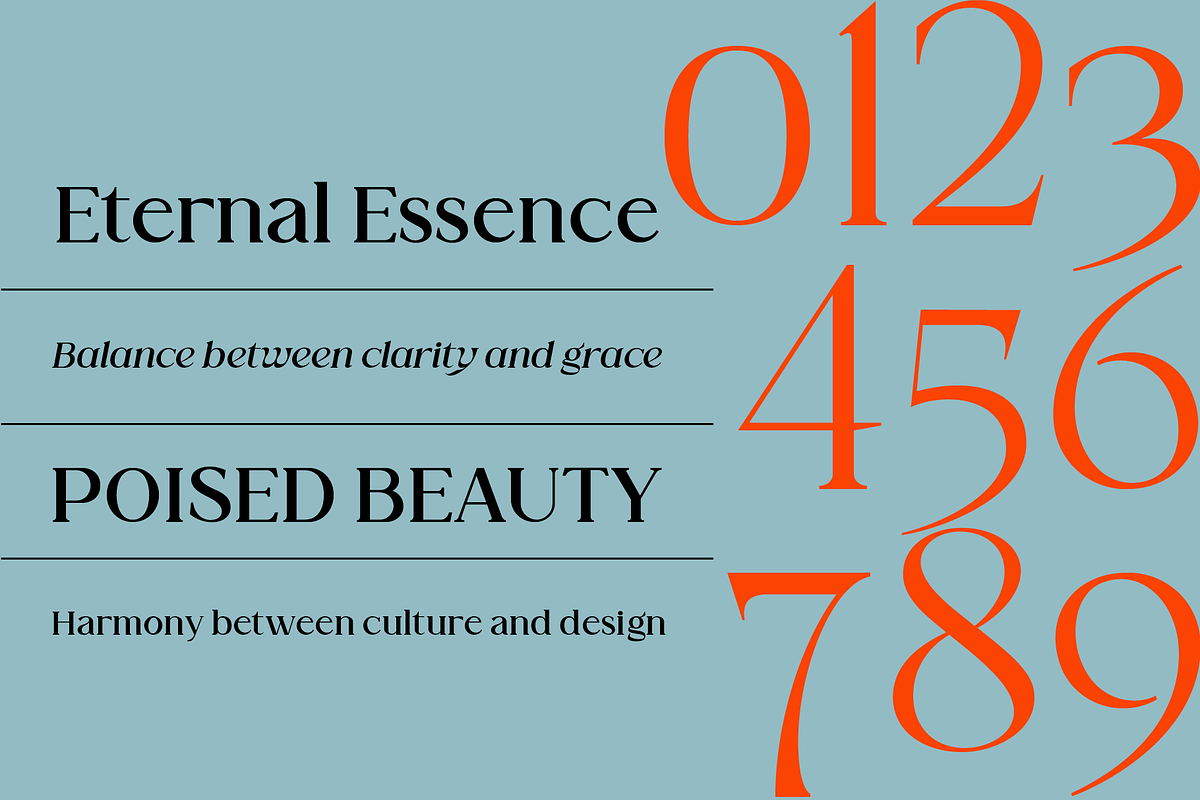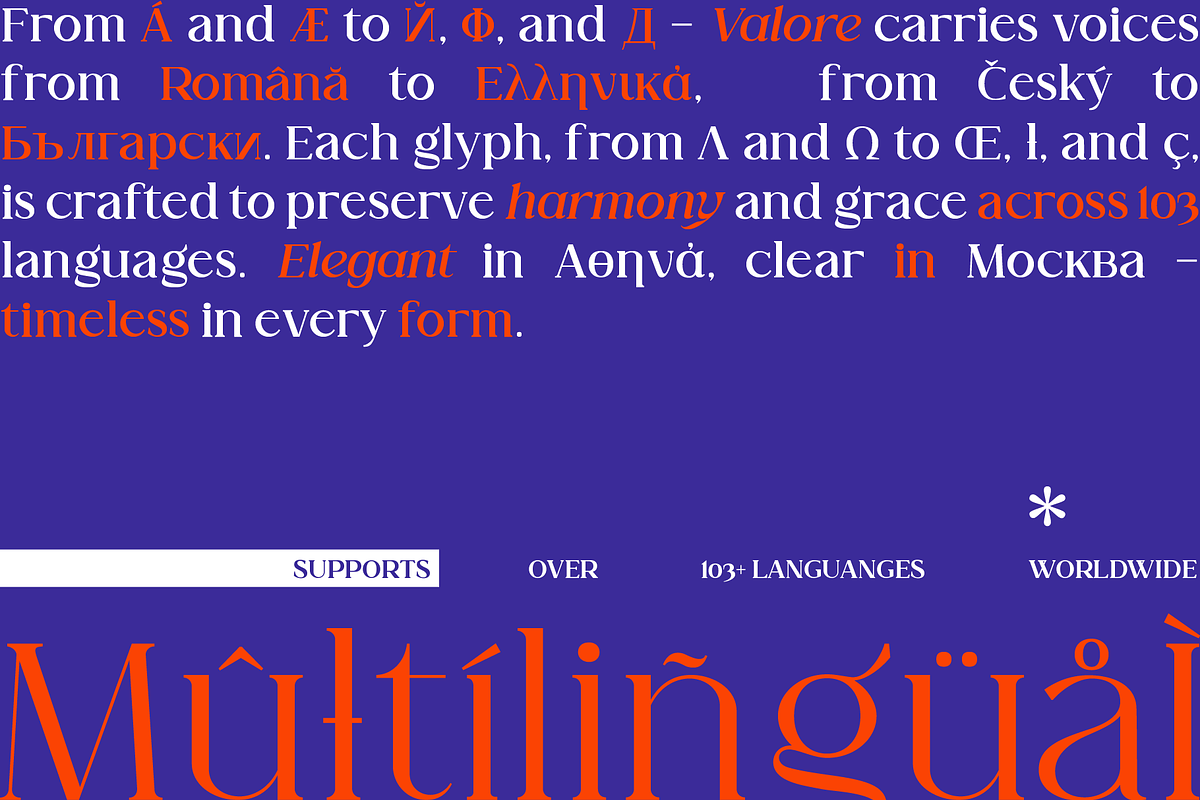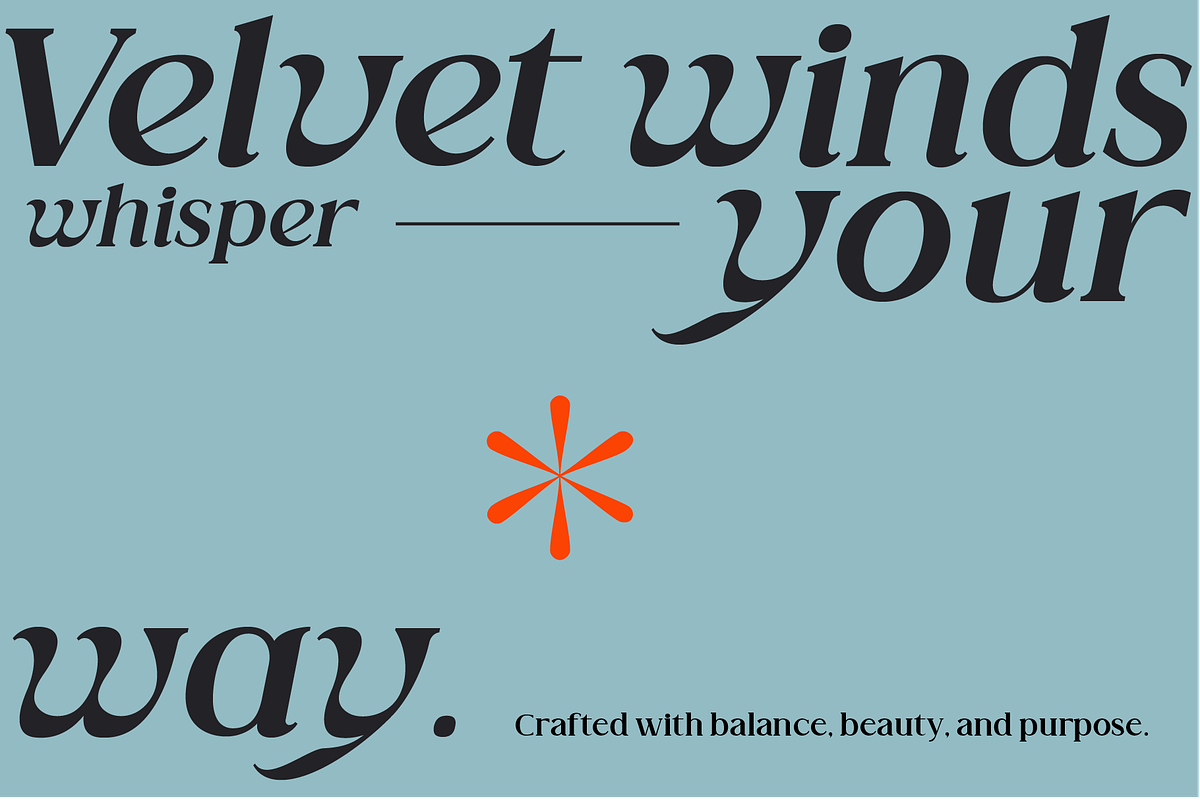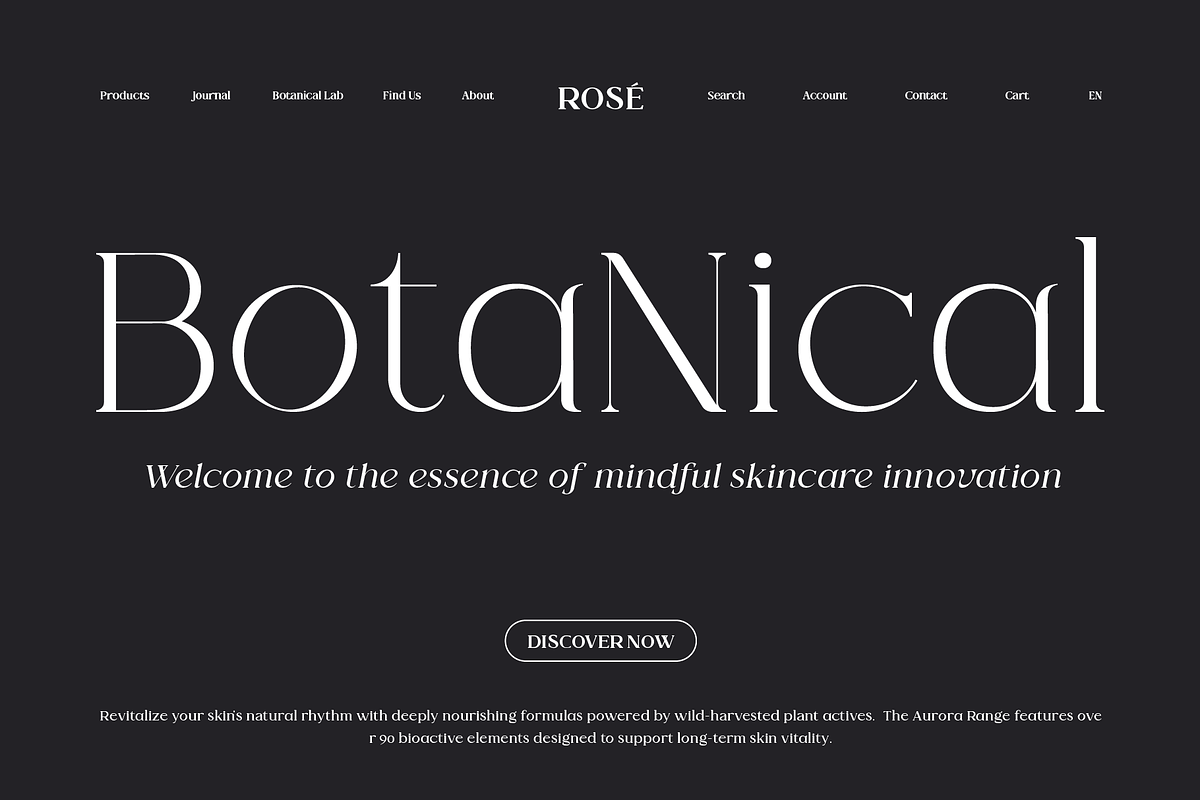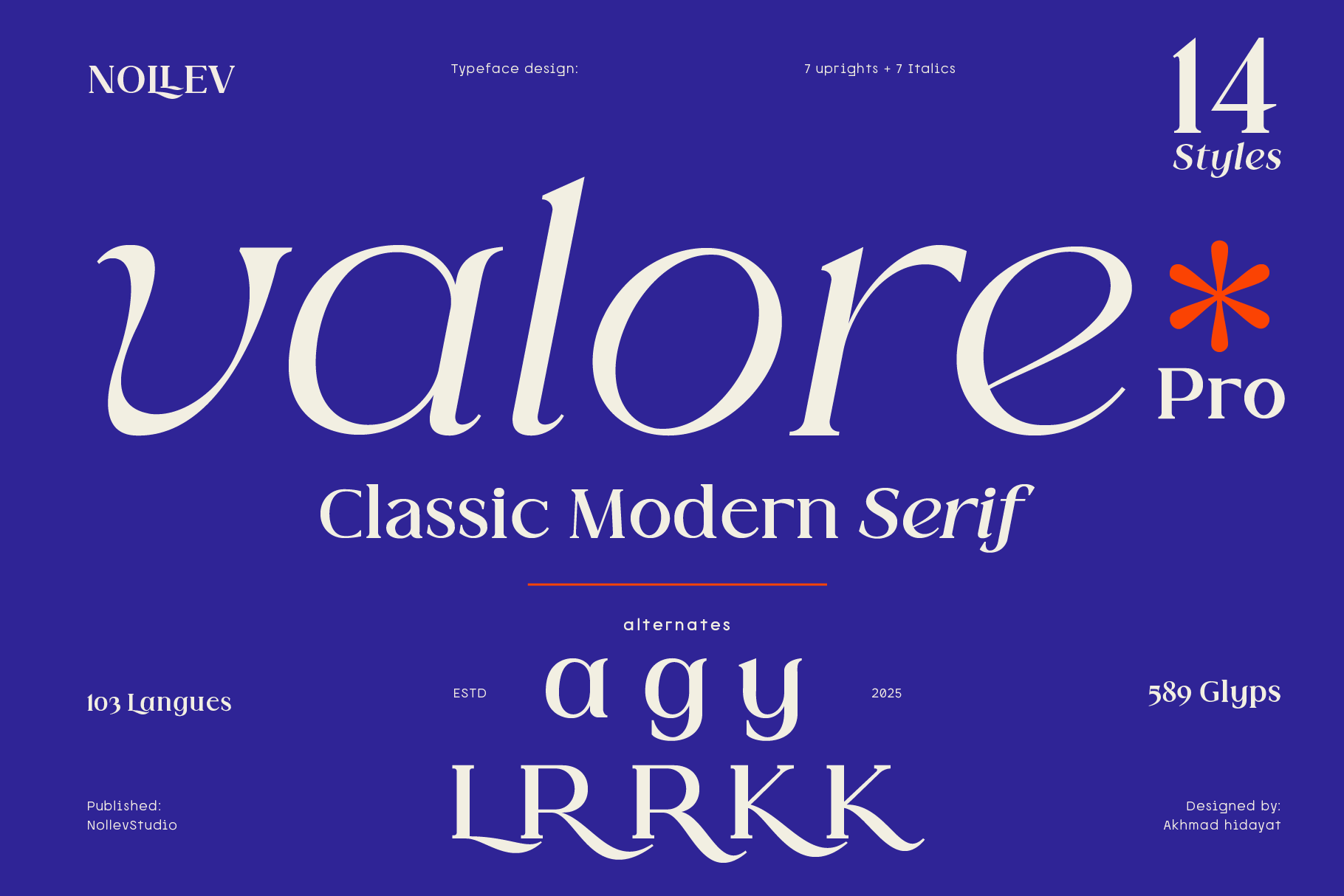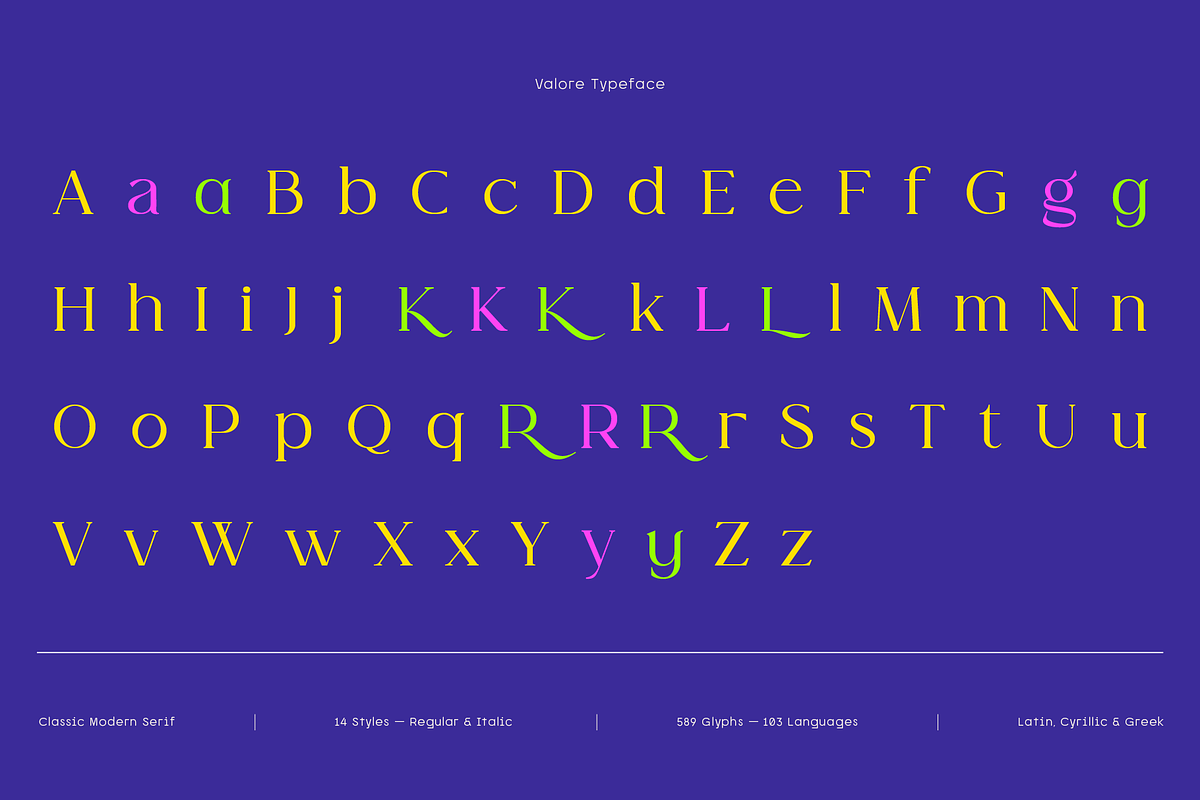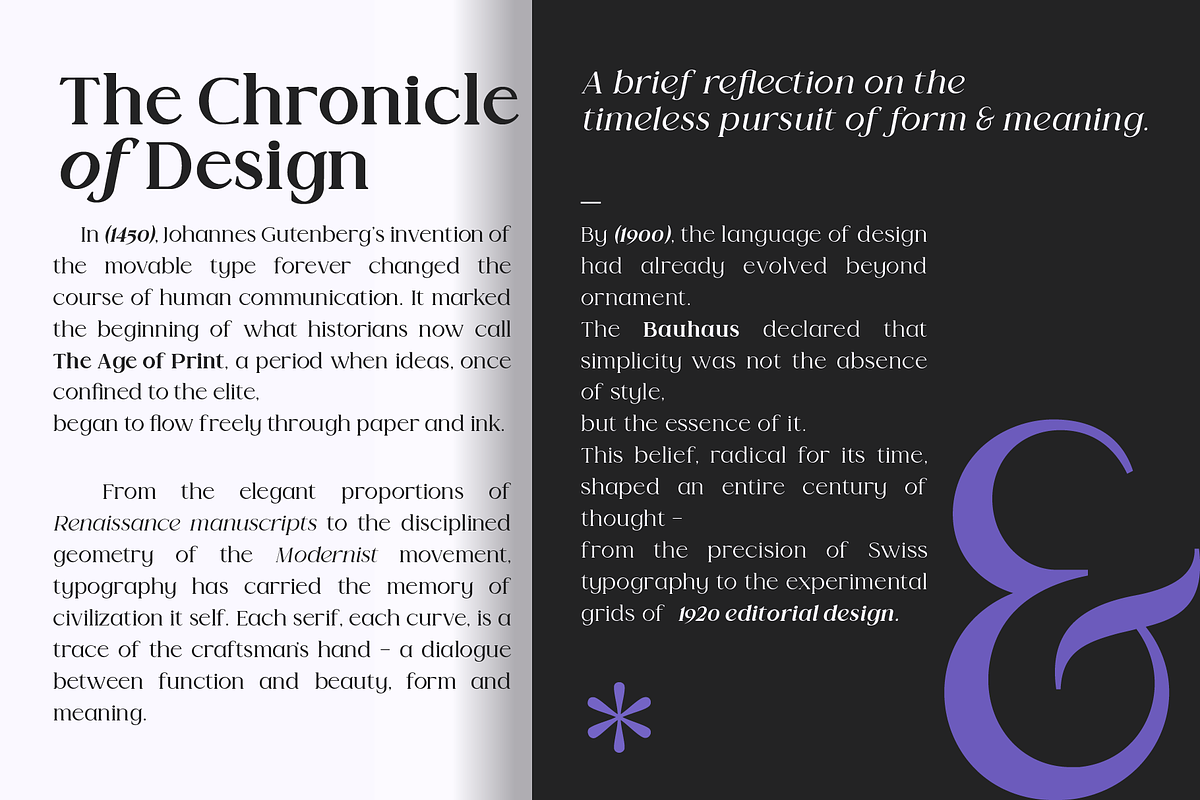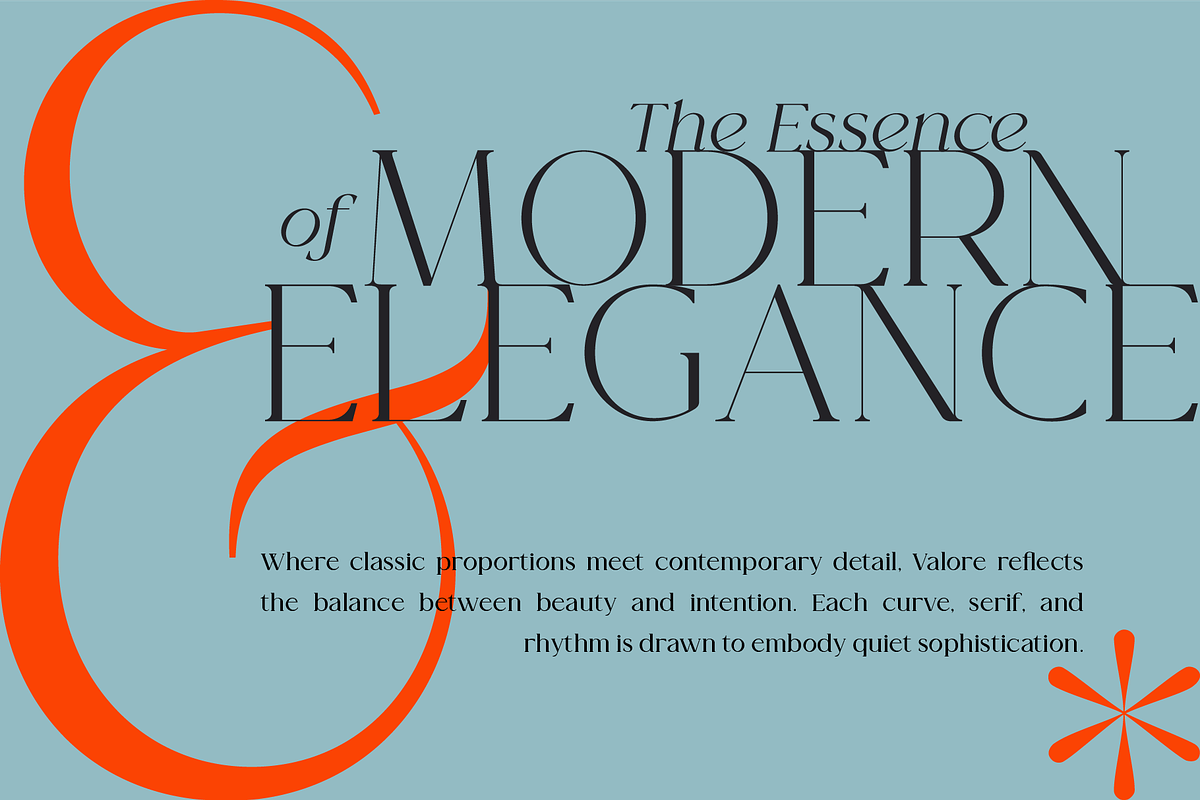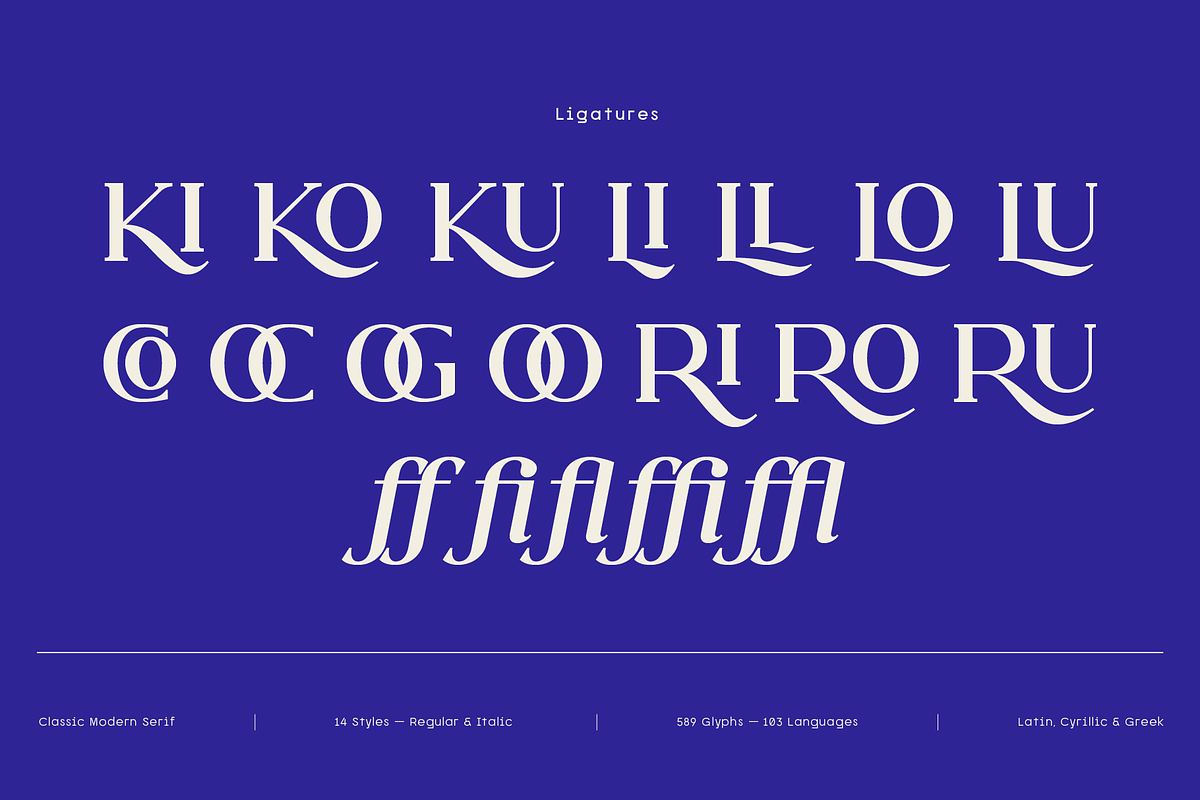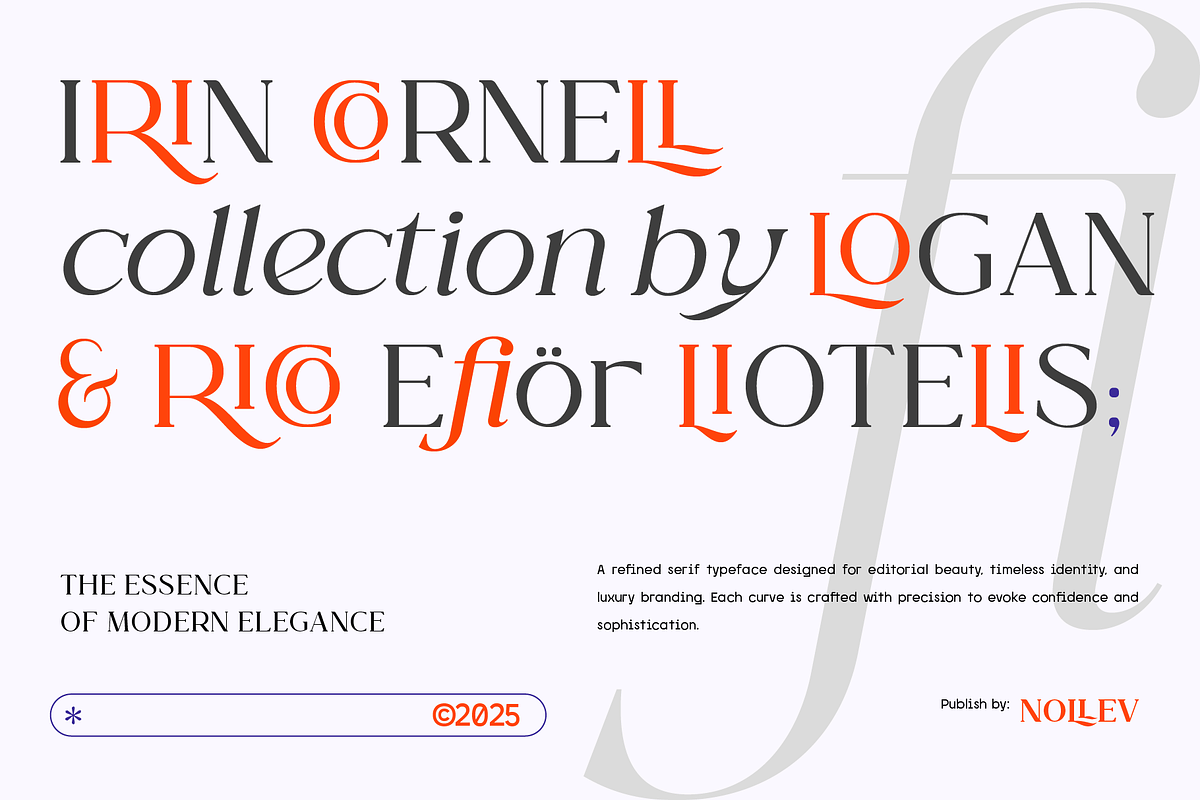
Valore Pro – Classic Modern Typeface
Valore Pro is a classic modern serif designed to bring timeless elegance and modern precision into your projects. With smooth curves, high contrast strokes, and refined italics, Valore Pro is crafted for editorial layouts, branding, and sophisticated typography.
This typeface blends classical proportions with a contemporary touch — perfect for magazines, luxury packaging, book covers, or stylish web design. Each letter is designed with care to balance beauty and readability, giving your design a professional and elegant personality.
- 14 Styles (7 Upright + 7 Italic)
- 589 Glyphs
- Supports 103 Languages
- High Contrast & Elegant Details
- Perfect for Editorial, Branding, and Logo Design
- Editorial & Magazine Design
- Branding & Logo Projects
- Book Covers & Titles
- Luxury Packaging
- Websites & Headlines